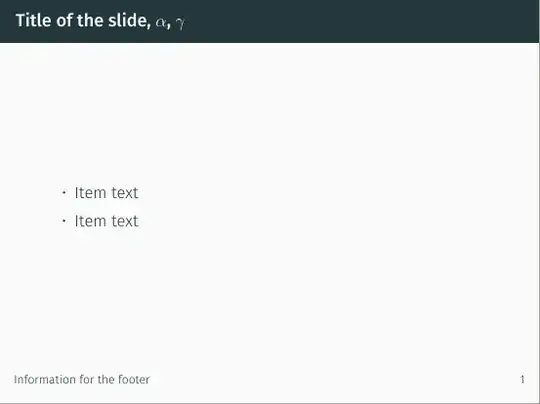
I use \usepackage[sfdefault,light,lining]{FiraSans} to reproduce the default font of the Beamer Metropolis theme. I followed this question for this.
However, the bold font looks too heavy. When I comment the \usepackage line, the font changes. The default font of Metropolis is different. I obtain these results with Overleaf and TeXstudio. It seems that I need to add another option to \usepackage or change the options there. How can I fix this?
You can change the bold font for title using fontspec package.
Edit
Actually, it turns out the option medium does exactly the same thing! It uses medium font for \bfseries.
• Yes, it works with lualatex. Thank you. The font, however, is bold-regular: BoldFont = FiraSans-Regular.otf (not medium). – Andre Feb 27 '23 at 04:31
• This solution is fine, but if you happen to know the option to use in \usepackage[sfdefault,light,lining]{FiraSans} to have the section titles behave in the expected way, it will be appreciated – Andre Feb 27 '23 at 04:36
@Andre, turns out it is possible. See my edit. – Zxcvasdf Feb 27 '23 at 07:34
• This is good, thanks. Now I found the additional options. It turns out that medium gets closer, but the default font for bold is regular. But it is close enough. Thanks! – Andre Feb 27 '23 at 16:19